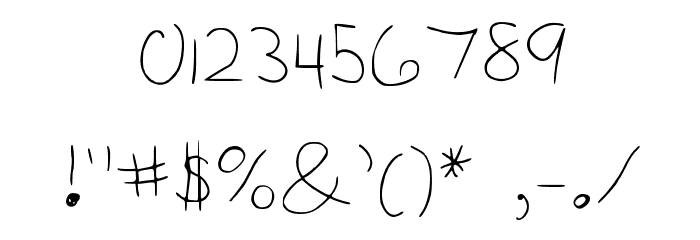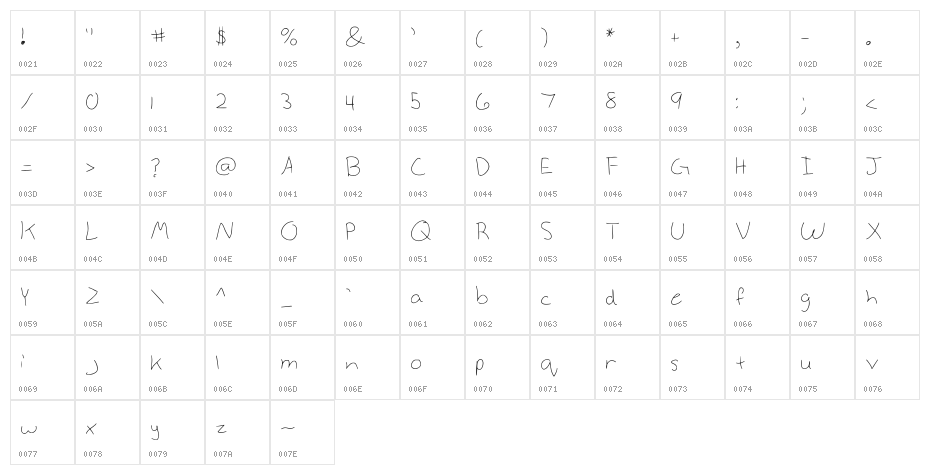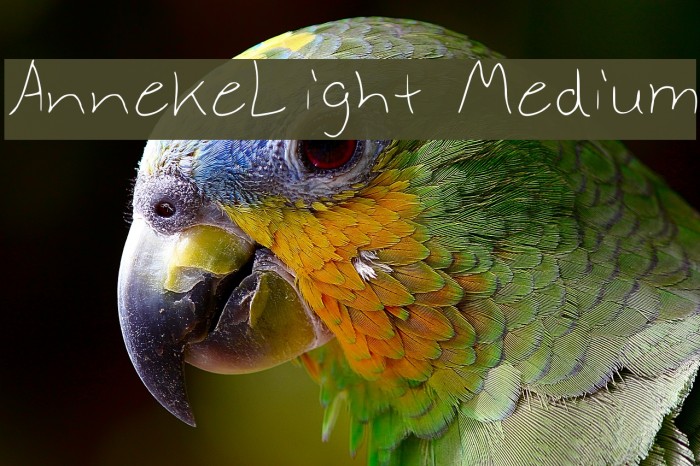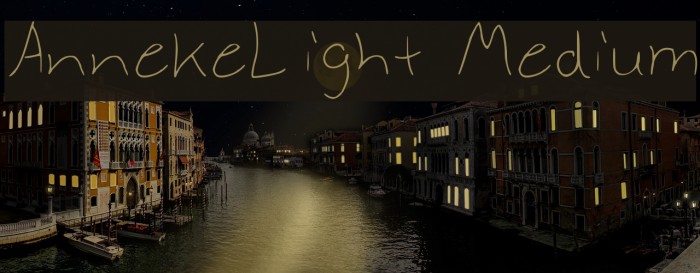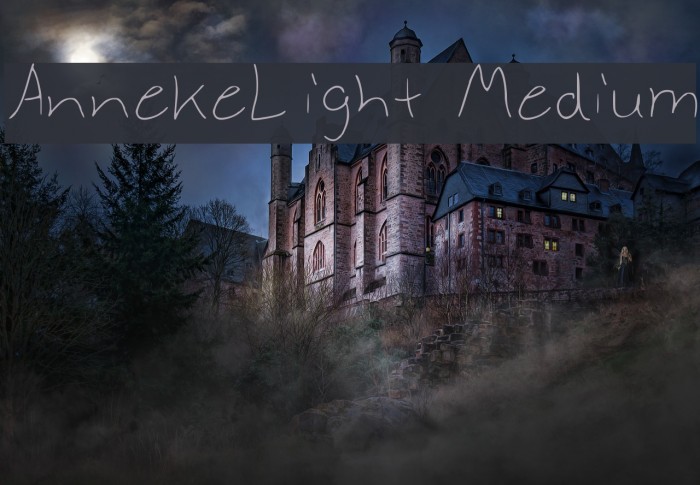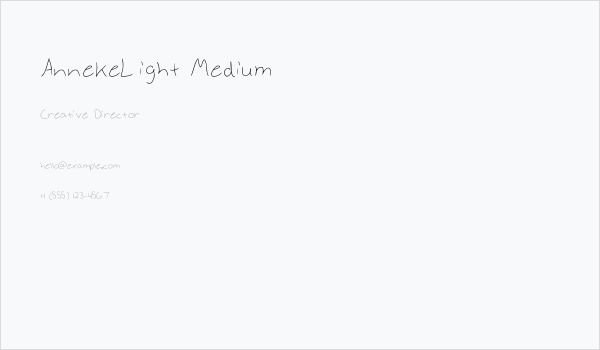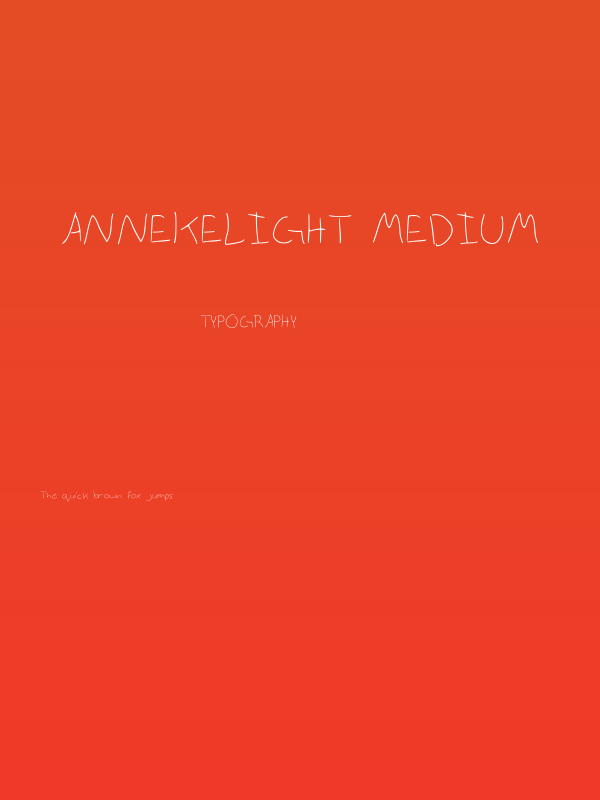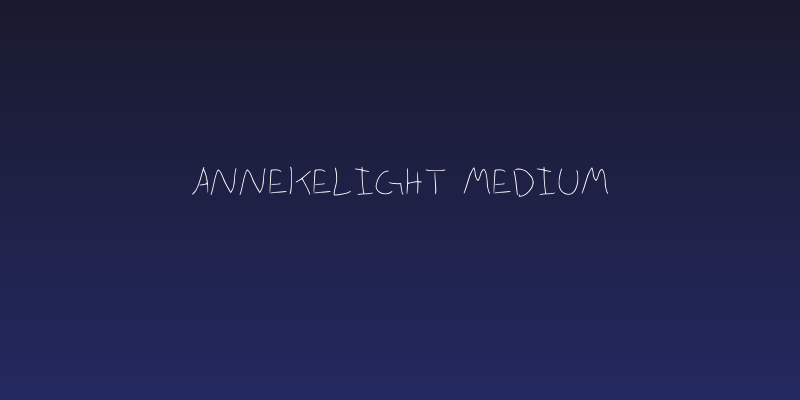
AnnekeLight Medium Font
AnnekeLight Medium Description
This font features a playful and casual handwritten style, characterized by its irregular and slightly whimsical letterforms. The strokes are thin and consistent, giving it a light and airy feel. The uppercase letters are tall and narrow, while the lowercase letters maintain a similar width, creating a harmonious balance. The numbers and special characters follow the same playful aesthetic, making it suitable for informal and creative projects. Its overall appearance is friendly and approachable, perfect for adding a personal touch to designs.
| Proposed Projects | Ideal for greeting cards, children's books, personal blogs, and creative branding. |